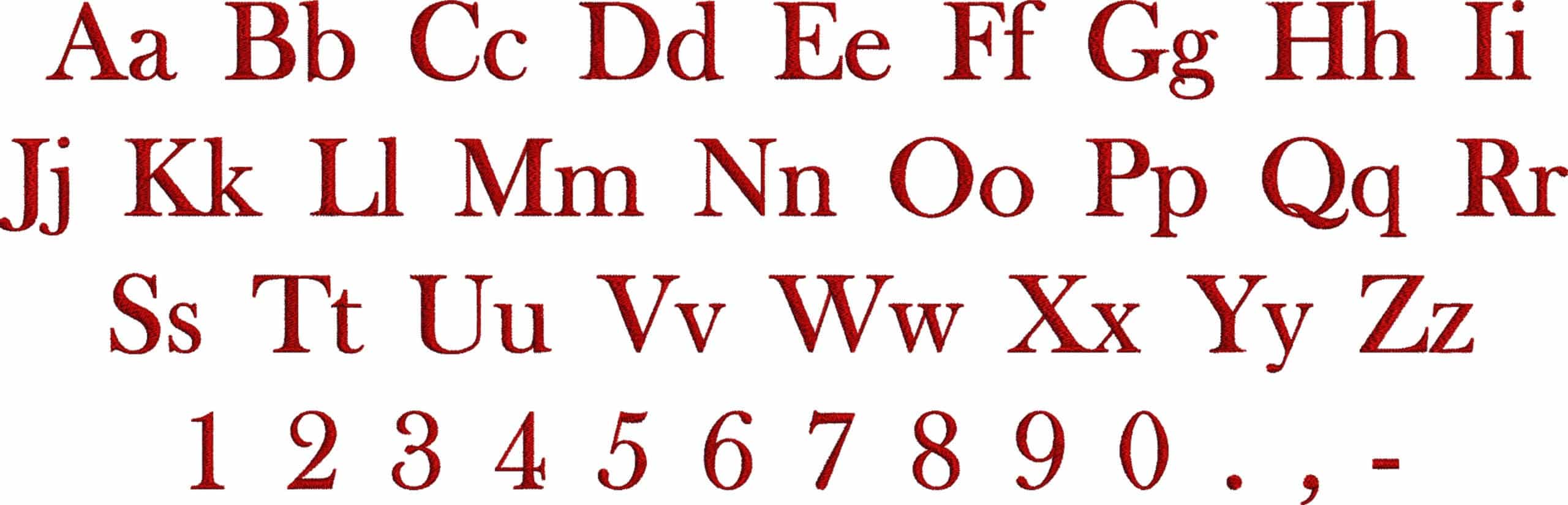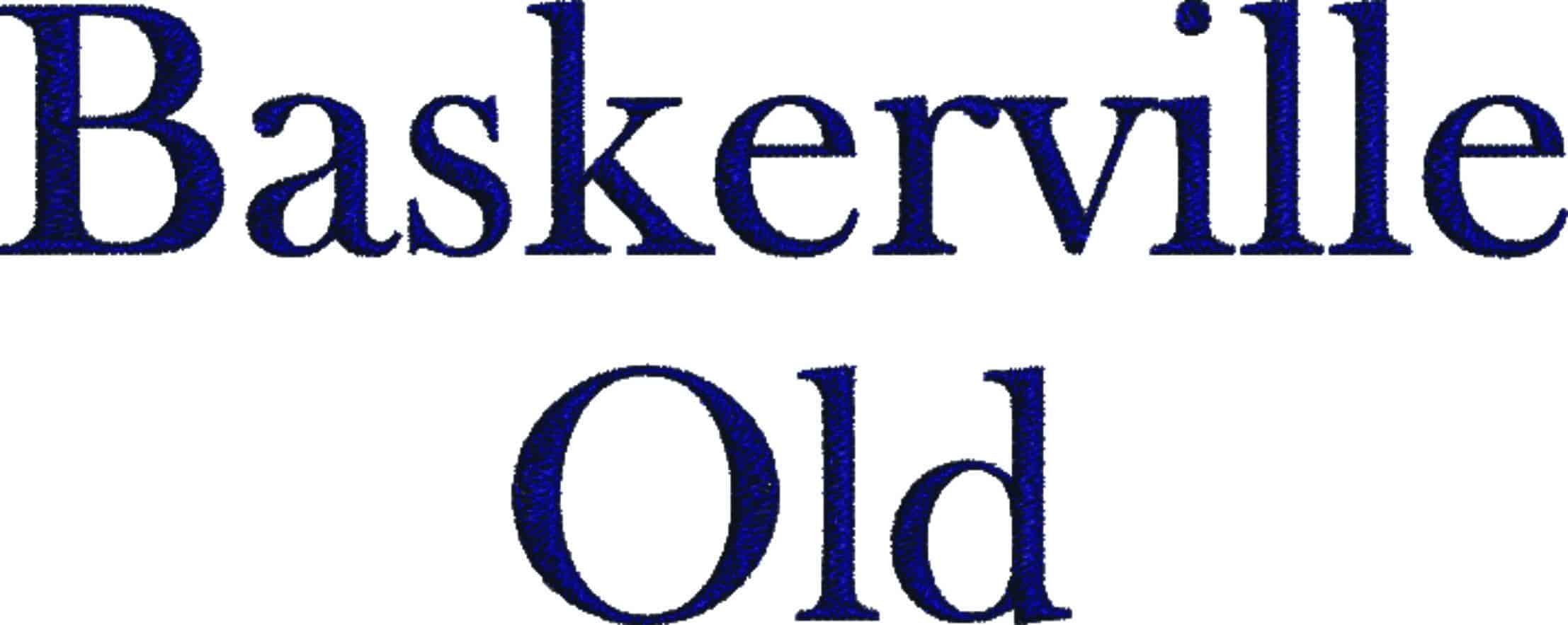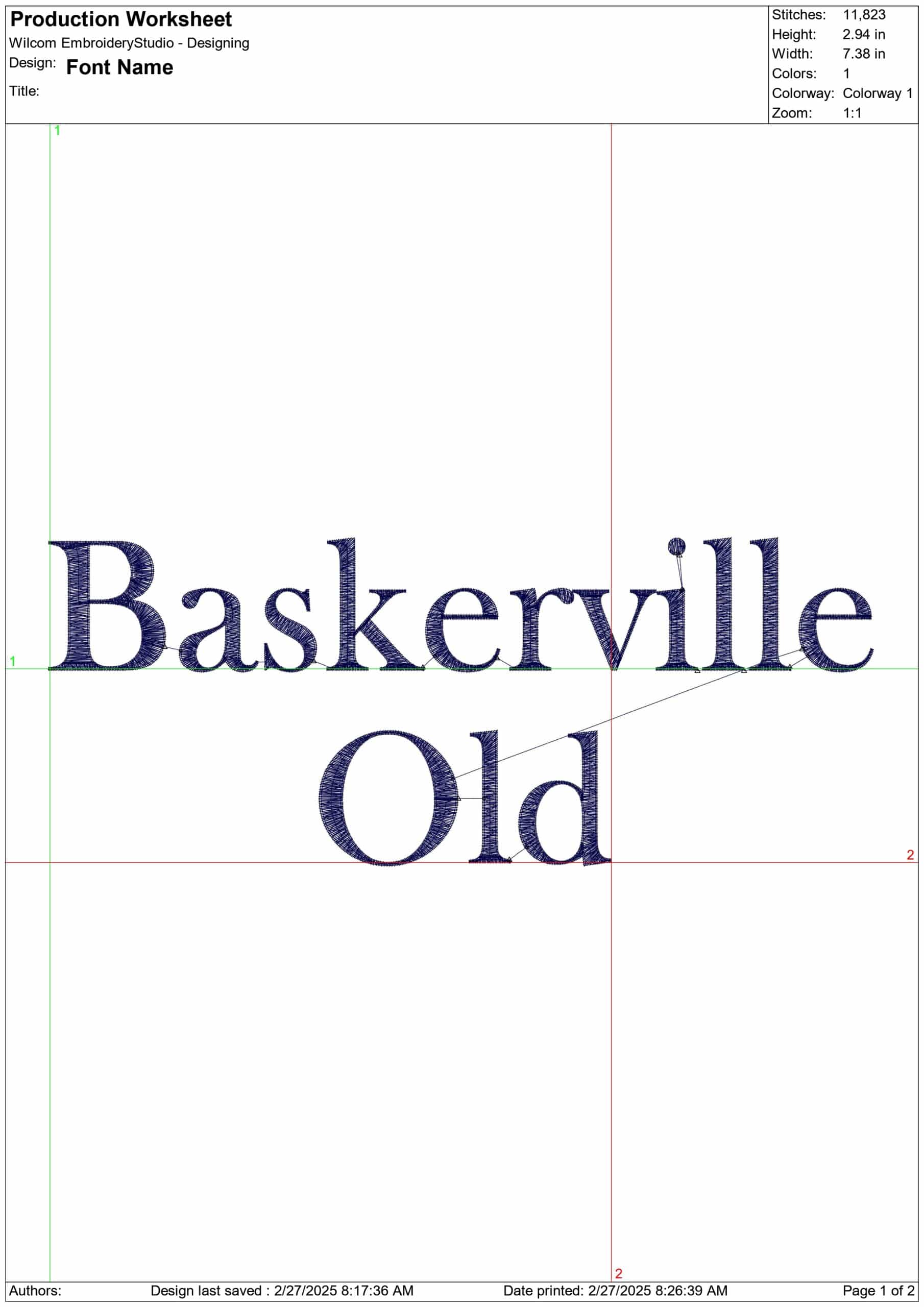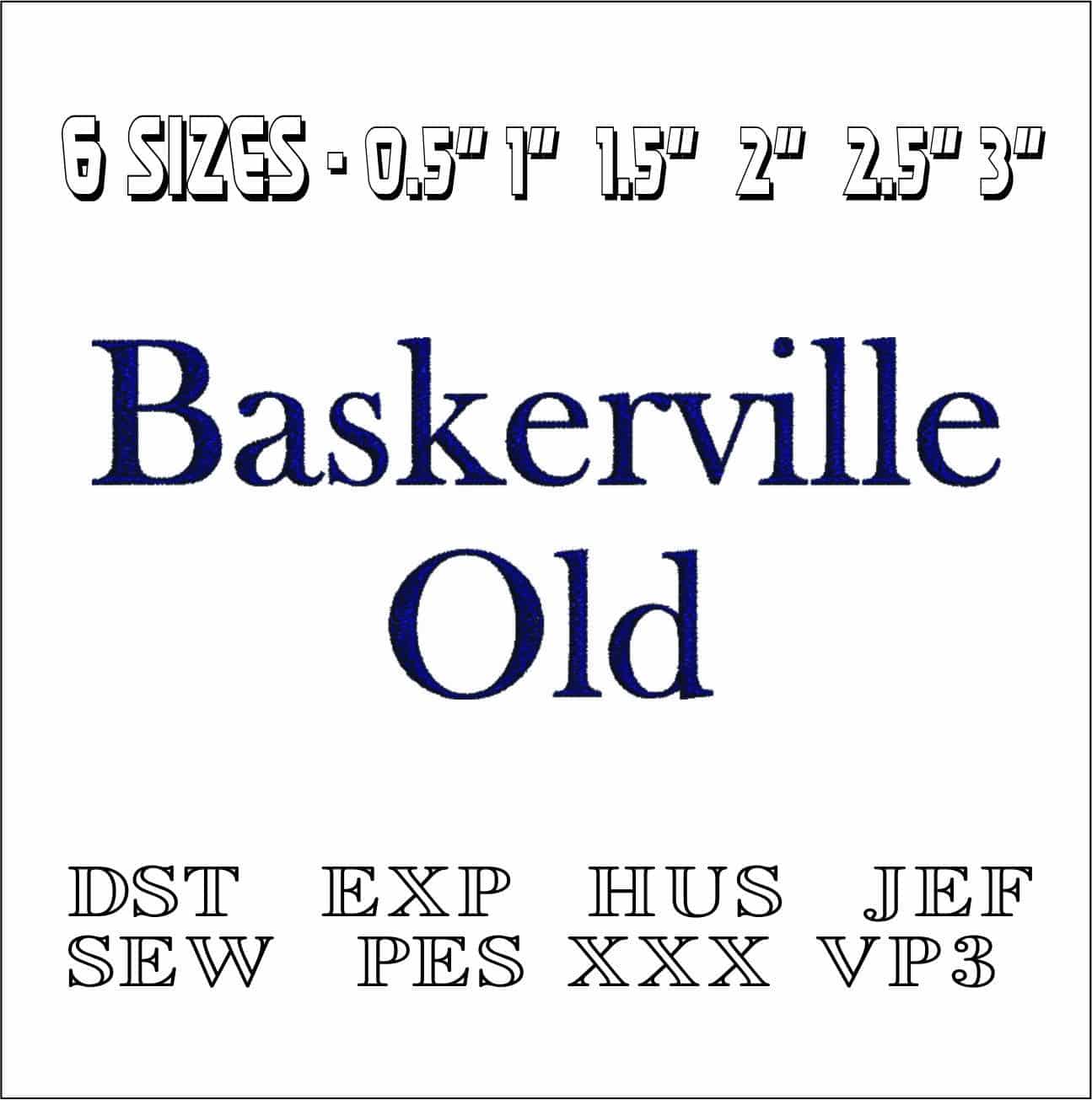
A refined Baskerville Old embroidery alphabet for monograms, names and wording that needs a classic serif finish without heavy stitching.
For classic lettering with a proper traditional feel, this Baskerville Old embroidery font set gives you upper and lower case letters, numbers and punctuation in a crisp serif style. The sample shows the character of the font clearly: neat contrast in the strokes, small bracketed serifs, and a formal look that suits makers who want wording to feel polished rather than playful. It is a strong choice for monograms, family names, christening pieces, heirloom-style gifts and branded linens where a timeless alphabet looks right.
Because it uses a single thread colour and is an open, lightly stitched font, it should sit cleanly on fabric without the heavy, filled-in look some alphabets create. I would use it on napkins, hand towels, shirt cuffs, pyjama pockets, cotton pillowcases and the corner of a table runner, where the serif detail can do the work. The smallest characters read as tidy and restrained, while the larger ones have enough presence for names, initials and dates on smarter projects.